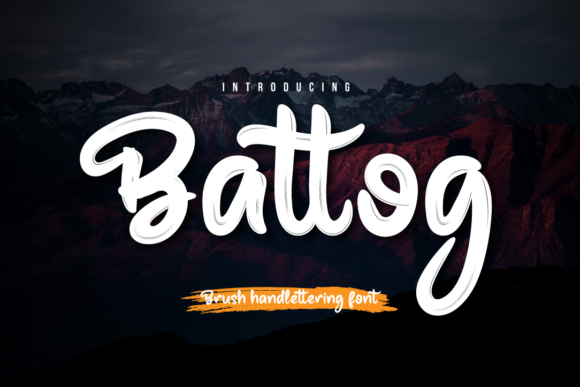
Unleash Your Creativity with Battog Font
Have you ever stared at a blank page, waiting for inspiration to strike? The cursor blinks, taunting you with its emptiness. But then, suddenly, a spark ignites, and your imagination runs wild. You envision bold letters, playful curves, and a dash of personality that sets your design apart from the rest.
Enter the Battog Font, a brush handwritten font that’s perfect for making original and outstanding designs. This versatile font is great for a wide variety of branding, advertising, posters, banners, packaging, and more. Whether you’re a seasoned designer or just starting out, the Battog Font is a valuable addition to your toolkit, offering endless possibilities for creative expression.
With the Battog Font, you’ll be able to infuse your designs with a unique touch that resonates with your audience. Its value lies in its ability to help you stand out in a crowded market, making it a must-have for designers who want to make a lasting impression.
Battog Font Key Features
- Unique Characteristics: Battog Font features a unique blend of geometric and organic elements, resulting in a distinctive and eye-catching design aesthetic.
Battog Font Review
As a designer, I’ve had the chance to work with various fonts, and Battog Font is one of the more interesting ones I’ve come across.
- Battog Font has a unique, hand-drawn feel that can add a touch of personality to your designs. It’s perfect for projects that need a bit of whimsy or charm.
- The font is highly customizable, with a wide range of weights and styles to choose from. This makes it easy to find the perfect look for your design.
- The font is also very readable, even at smaller font sizes. This is a big plus for designers who need to work with text-heavy content.
- Battog Font may not be the best choice for projects that require a more formal or professional tone. The font’s hand-drawn feel can come across as unpolished or immature in some contexts.
- The font may not be suitable for all languages, as it’s primarily designed for Latin-based scripts.
- The font’s customizability can also be a double-edged sword. With so many options to choose from, it can be overwhelming to find the perfect combination for your design.
Overall, Battog Font is a solid choice for designers who need a unique, customizable font for their projects. While it may not be suitable for all contexts, it’s a great option for those who want to add a bit of personality to their designs.
Battog Font is ideal for:
- Creating bold, modern headings and titles.
- Designing custom logos and graphics.
- Creating presentations and documents with a professional look.